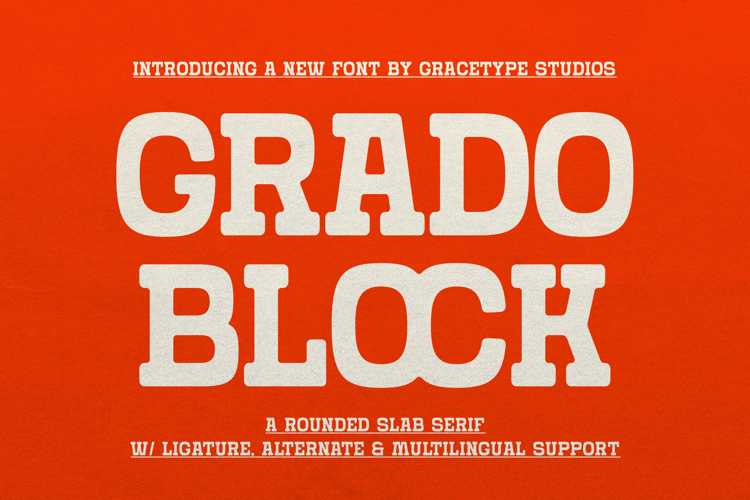
Grado Block Font
Grado Block | Rounded Slab Serif, is suitable for any projects such as: logos, branding projects, homeware designs, product packaging, mugs, quotes, posters, shopping bags, t-shirts, book covers, name card, invitation cards, greeting cards, label, photography, watermark, special events, and all your other lovely projects that need a Slab Serif taste.